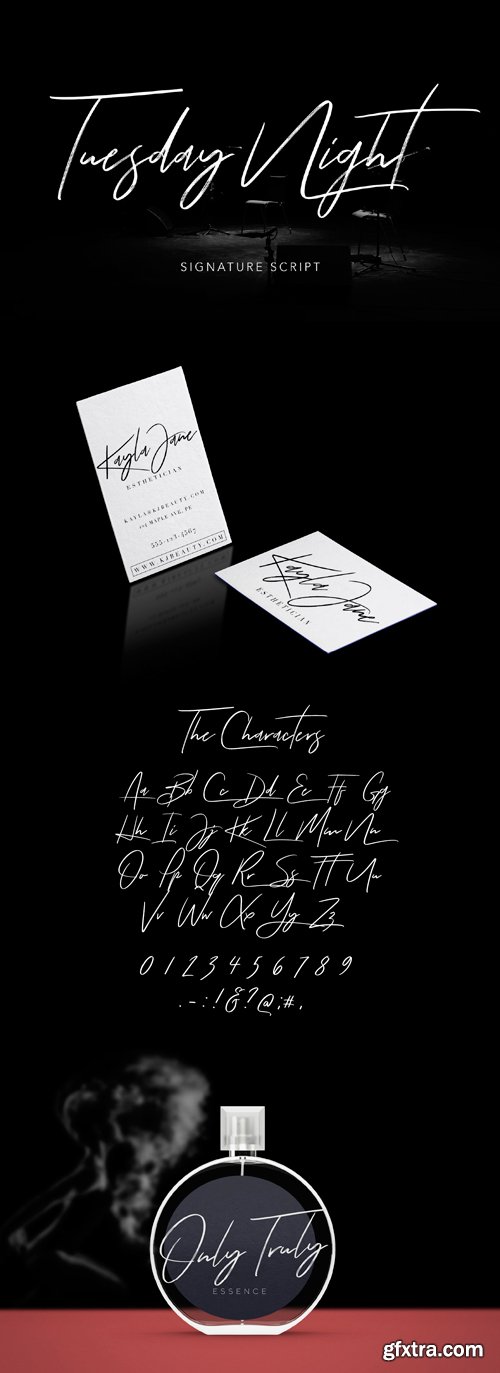
Tuesday Night Font
Tuesday Night is a brand new signature script from Font Forestry. It is a handcrafted script font made for many different applications & styles to personalize your products. Tuesday night features extra large capitals for a unique signature style that is perfect for wedding invitations, logos, apparel, decorative quotes, prints, scrap booking and much more!